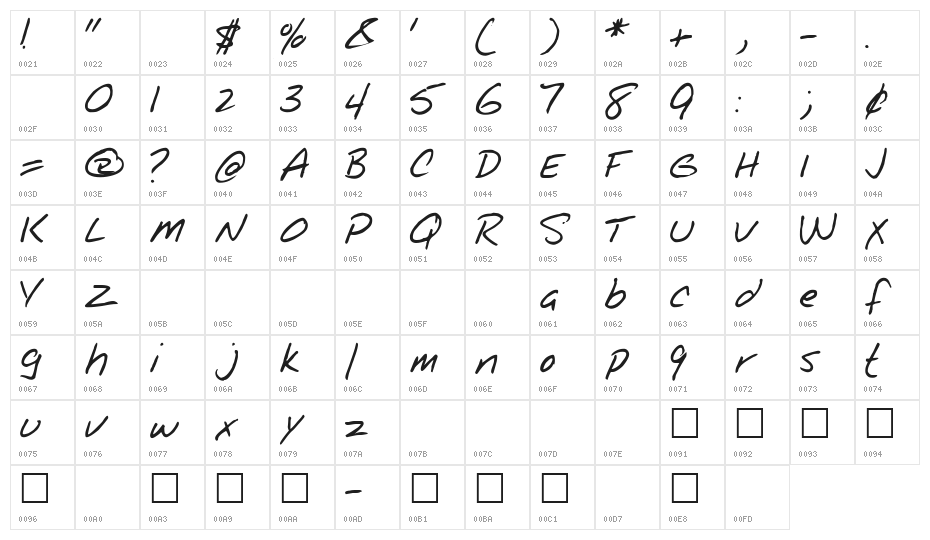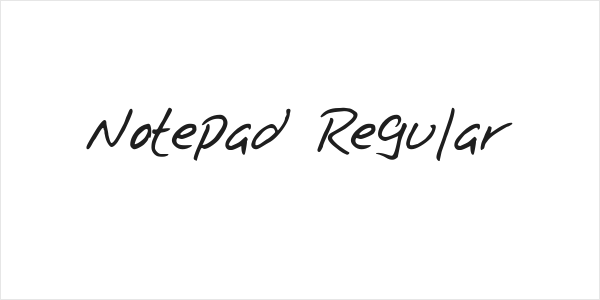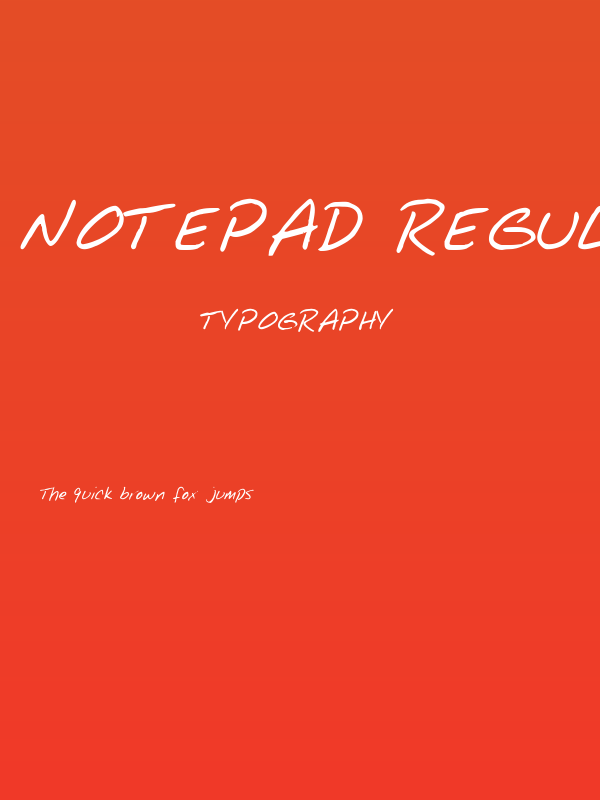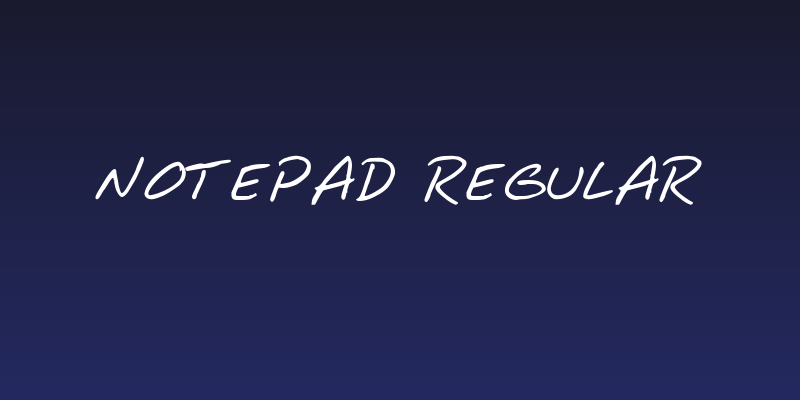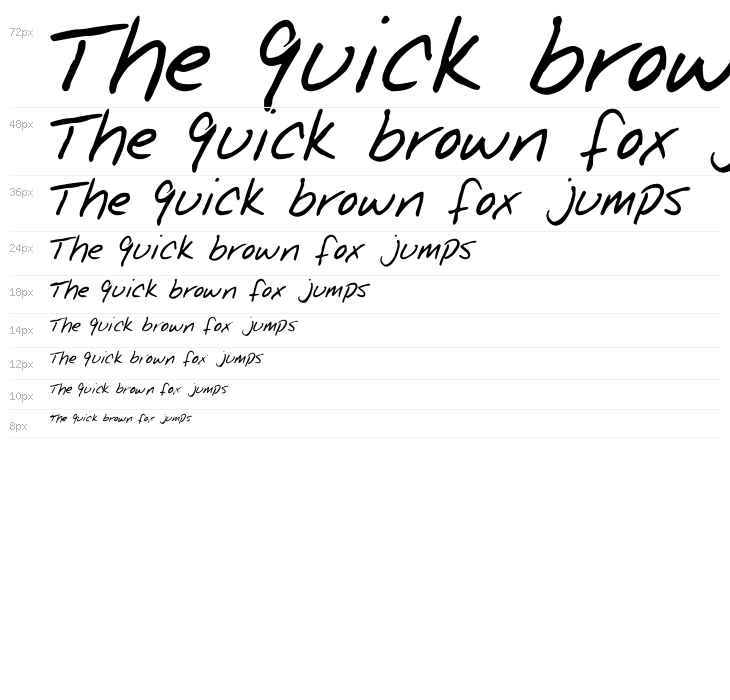
Notepad Regular Font
Notepad Regular Description
This font embodies a casual, handwritten style with a fluid and natural appearance. The characters are slightly slanted, giving it a dynamic and informal feel. The strokes vary in thickness, adding a touch of personality and uniqueness to each letter. The uppercase letters are bold and prominent, while the lowercase letters maintain a consistent flow. Numbers and special characters are crafted with the same attention to detail, ensuring readability and coherence. This font is ideal for projects that require a personal touch, such as invitations, greeting cards, or creative branding.
| Overall Style | Casual |
| Use Case | Headlines, Logos, Personal notes |
| Proposed Projects | Ideal for invitations, greeting cards, creative branding, and personal notes. |